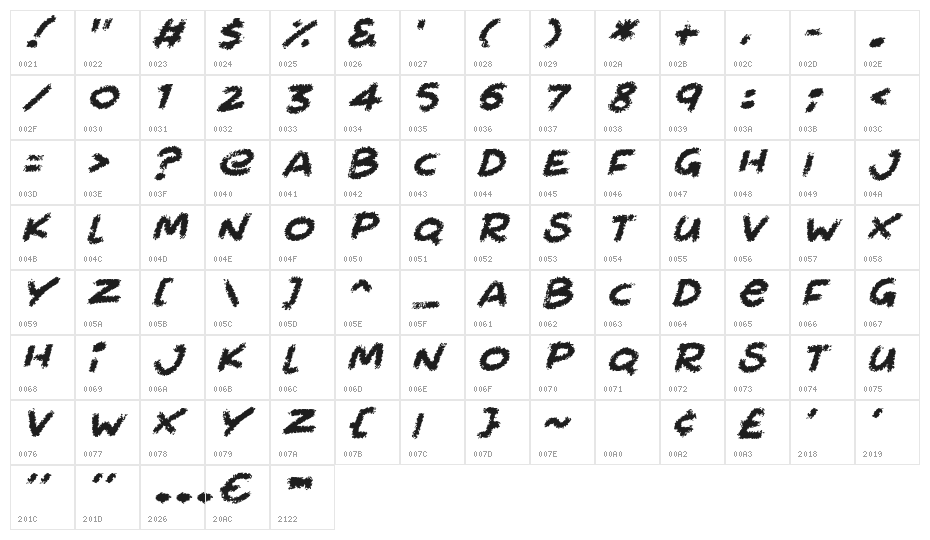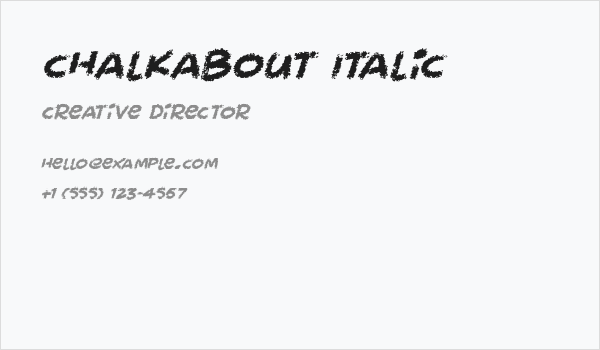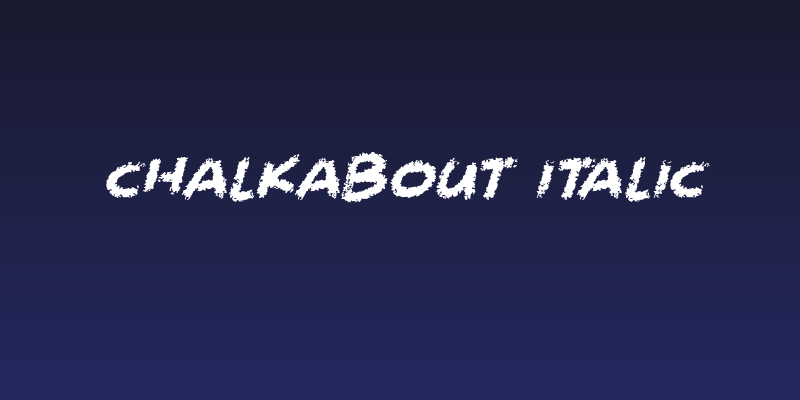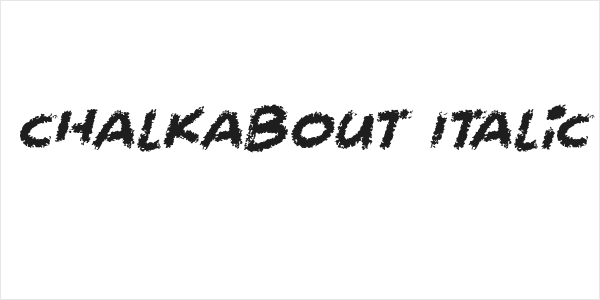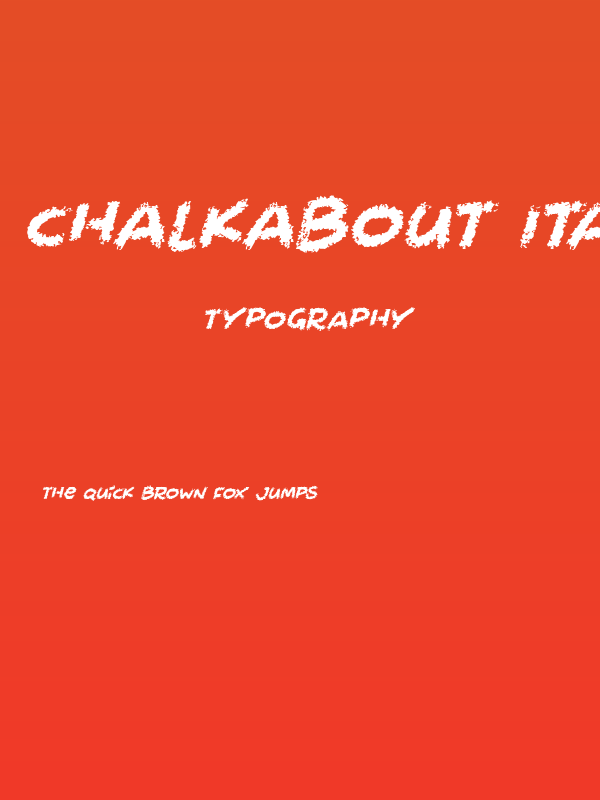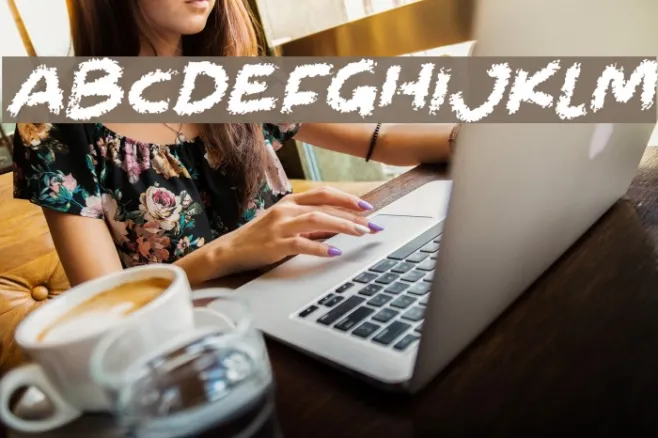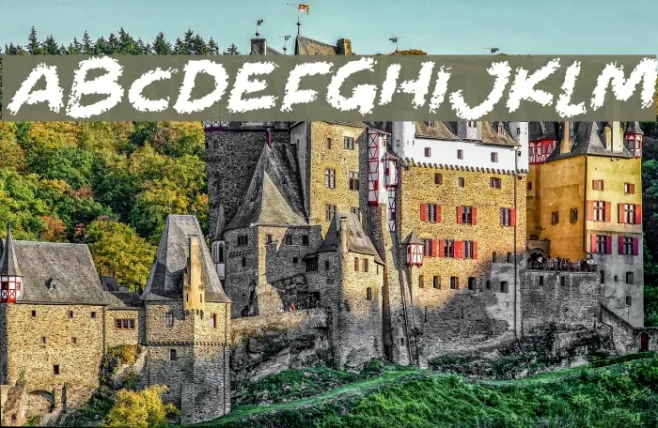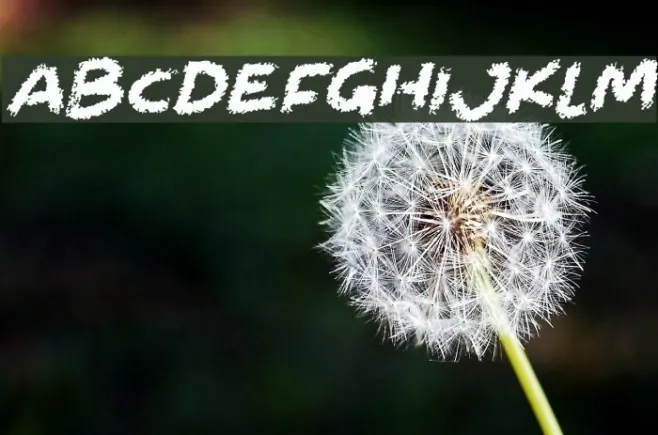
Chalkabout Italic Font
Chalkabout Italic Description
This font exudes a playful and dynamic energy, characterized by its chalk-like texture and bold, expressive strokes. The letters have an irregular, hand-drawn appearance, reminiscent of writing on a chalkboard. The style is informal and artistic, making it ideal for creative projects. The uppercase and lowercase letters maintain a consistent style, with a slightly slanted, italicized form that adds to the casual feel. Numbers and special characters are equally bold and textured, ensuring a cohesive look across all text elements.
| Proposed Projects | Perfect for educational materials, children's books, playful branding, and artistic posters. |